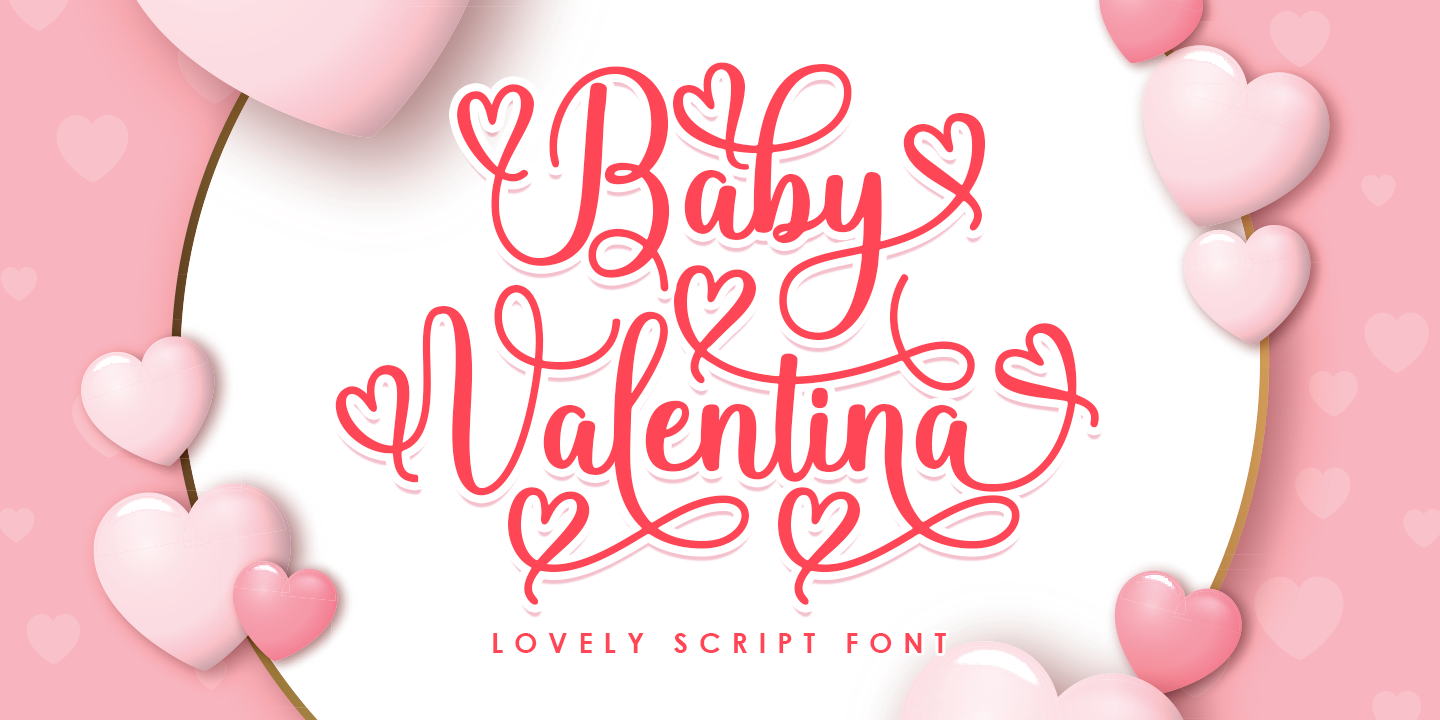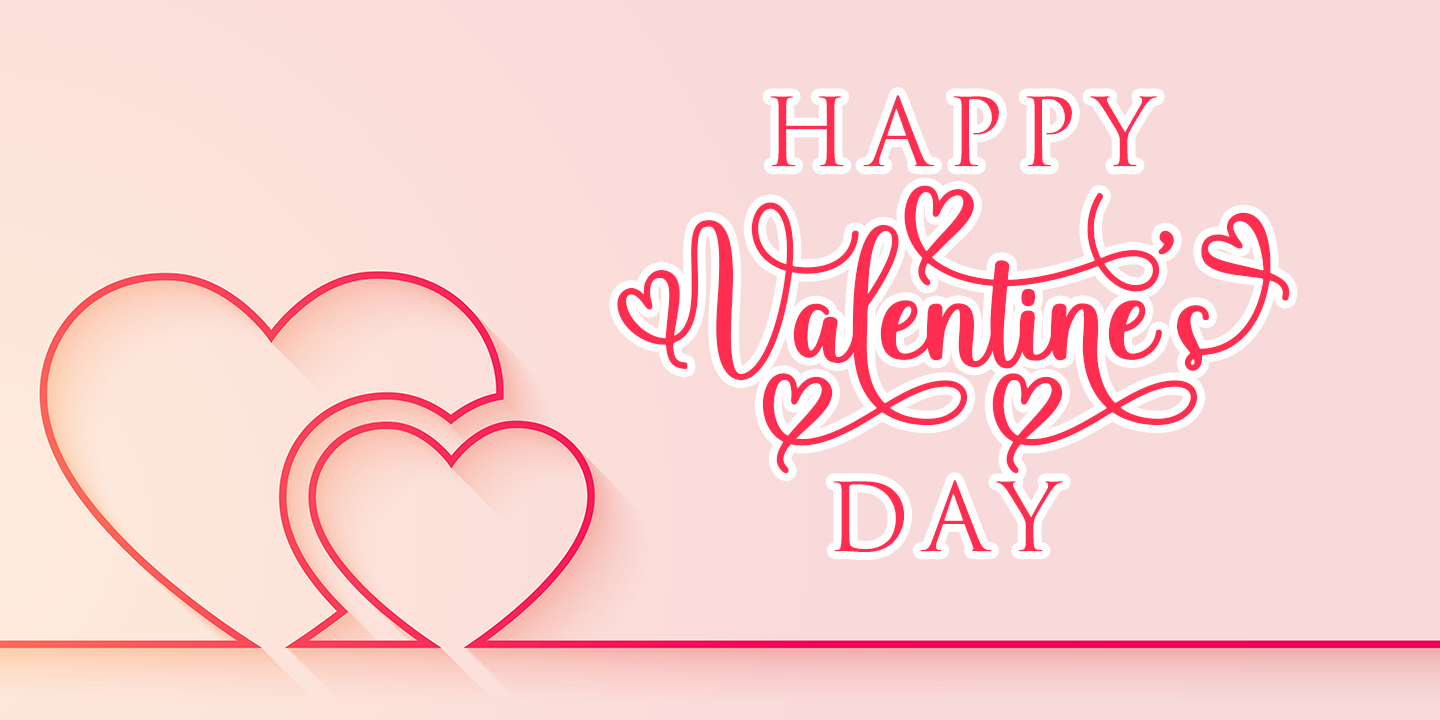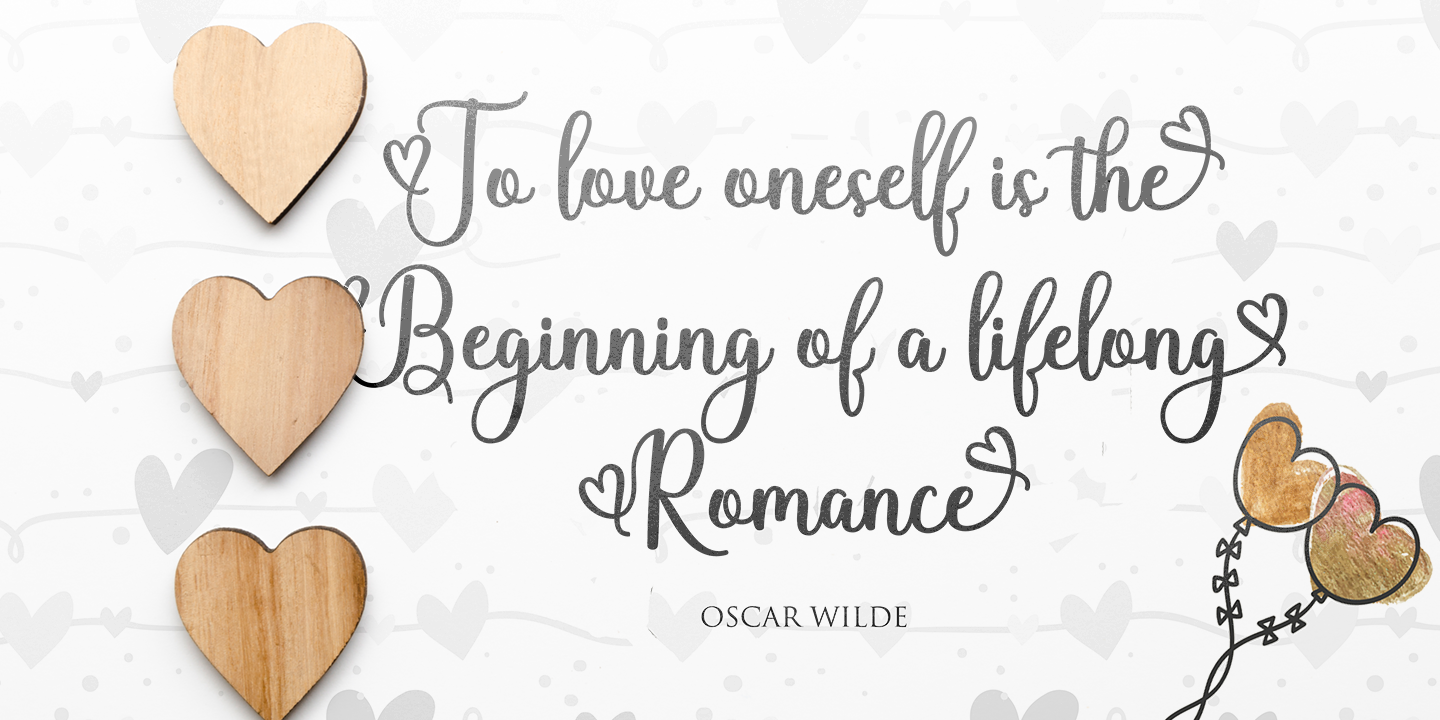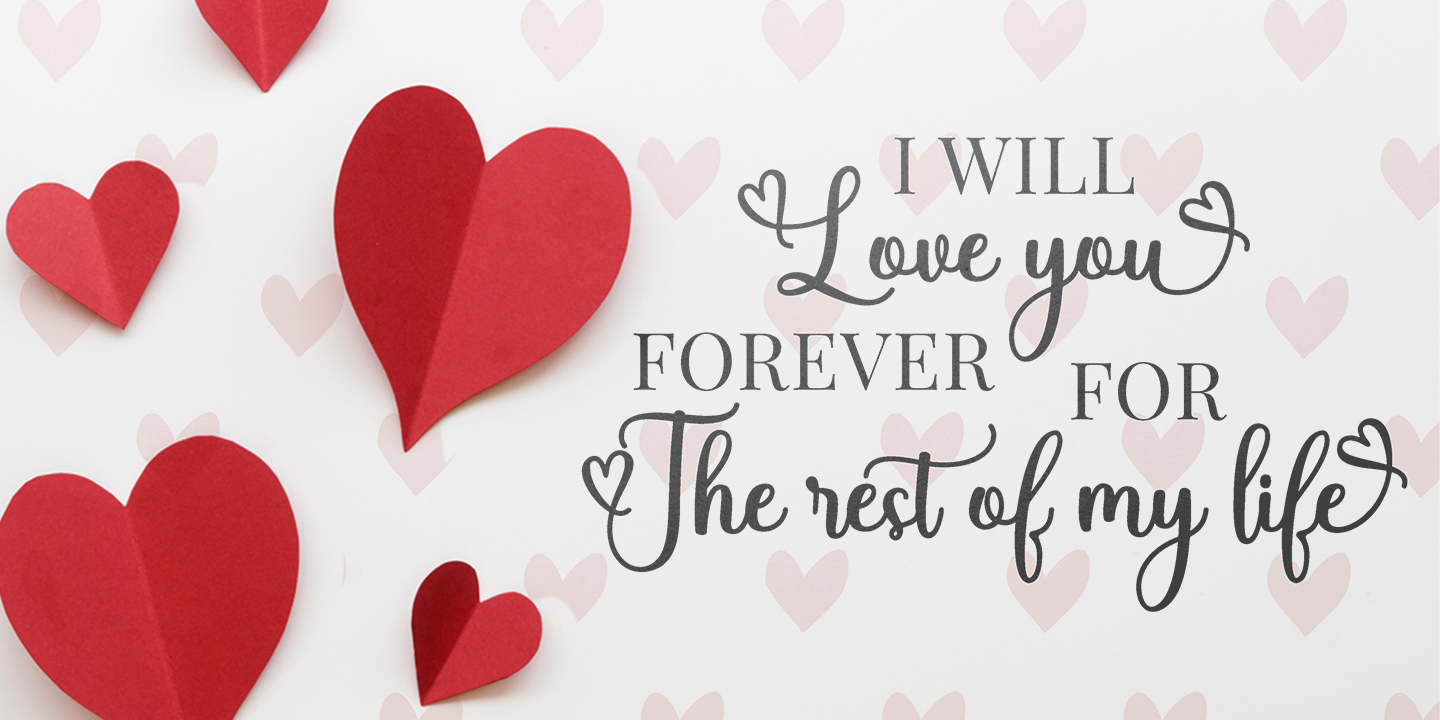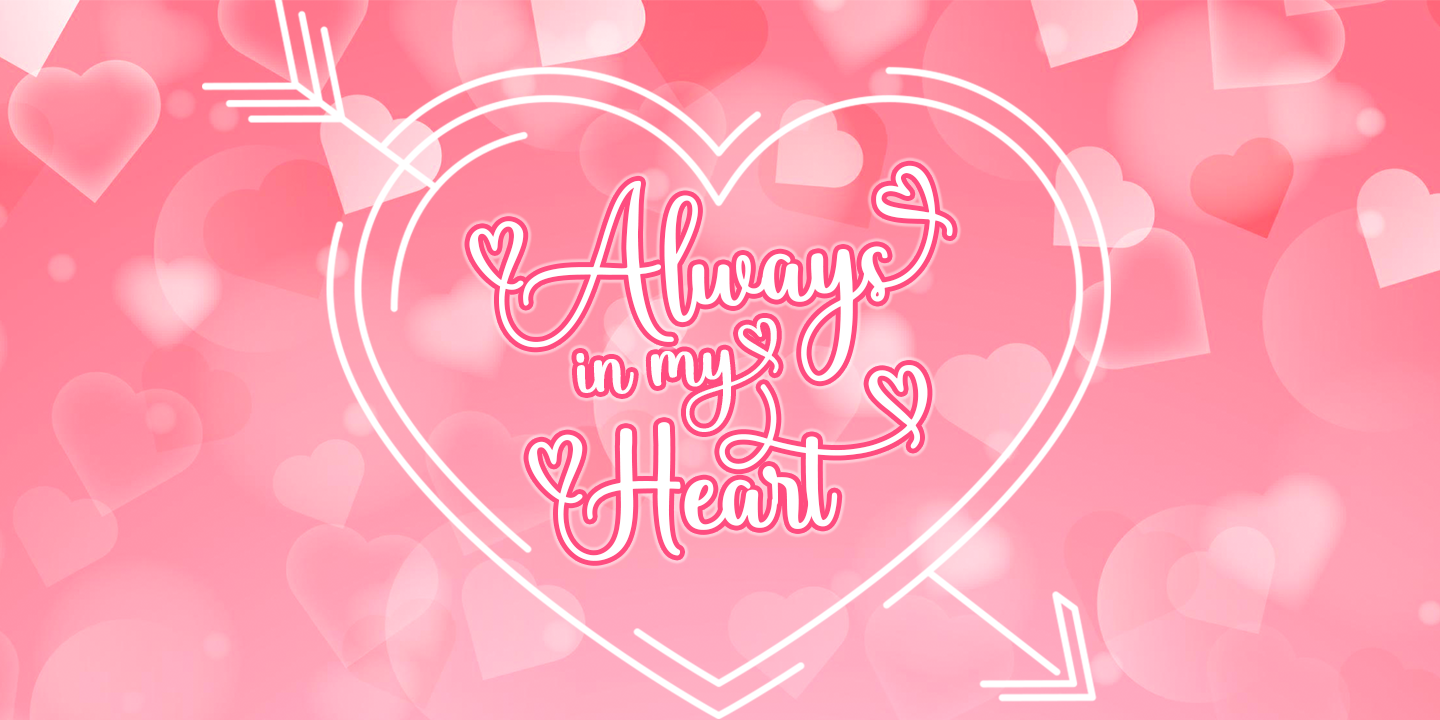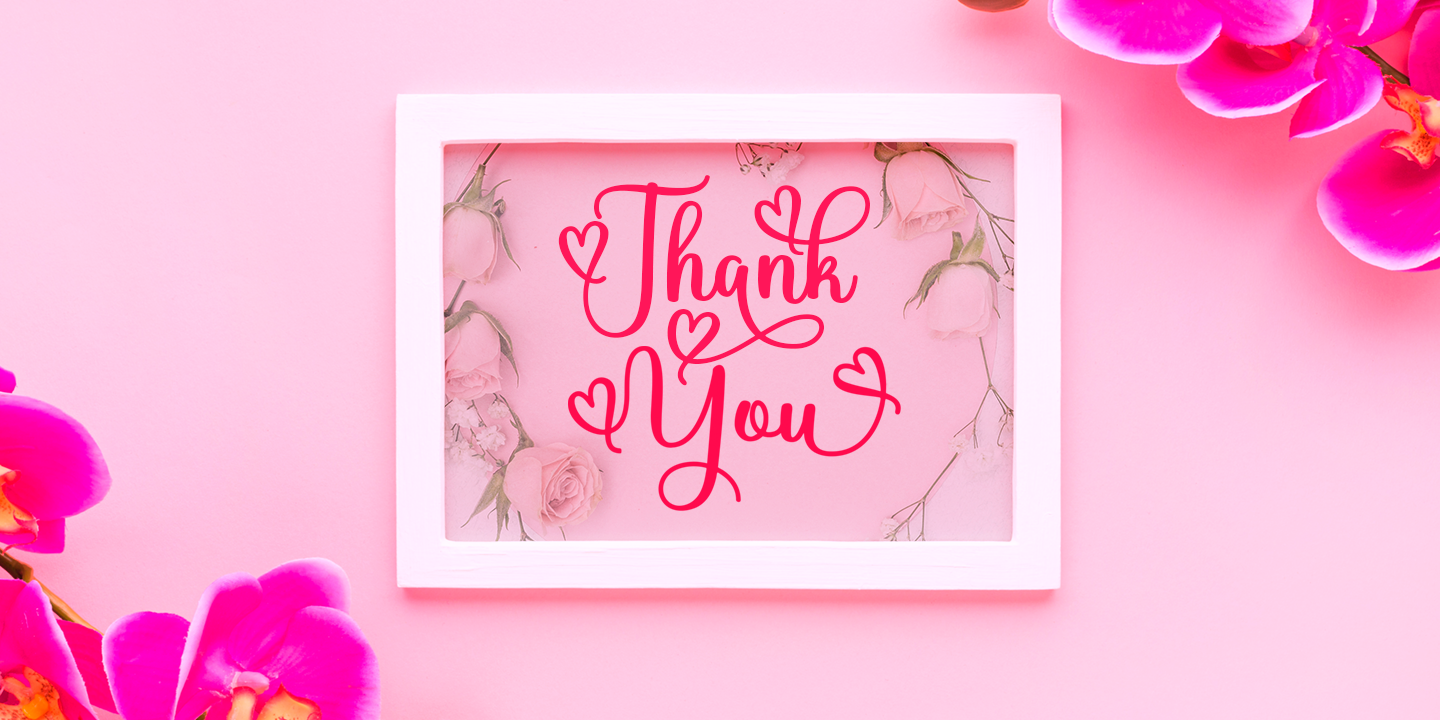
Baby Valentina is a beautiful, romantic and trendy modern calligraphy font. Amazing romantic theme fonts make your Valentine's Day even more spectacular. I hope you are interested in this font.
This font is perfect for you to use for Valentine's Day greeting cards, love quotes, wedding invitations, birthdays, parties and other romantic projects.